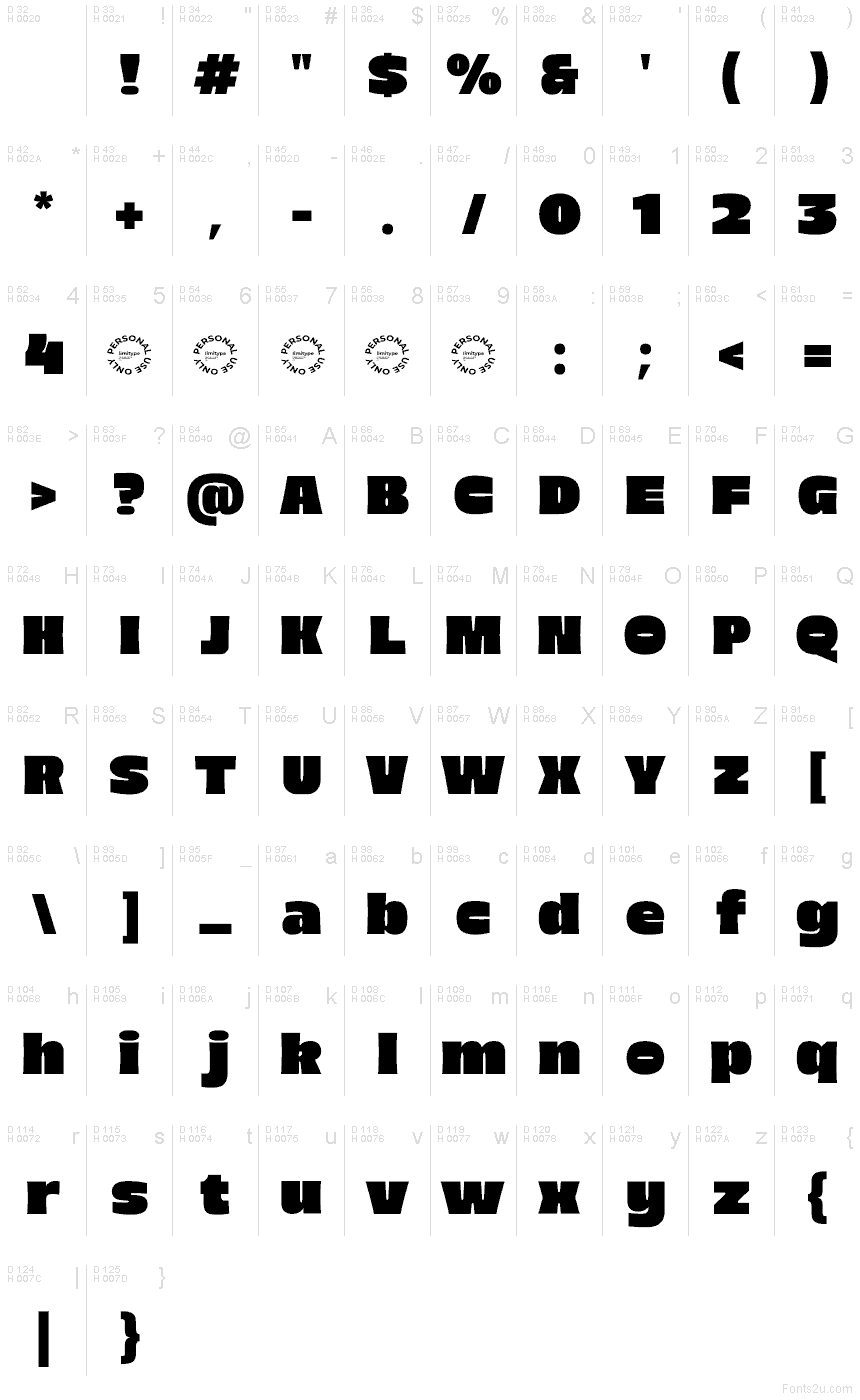
Wister Demo
Wister font by Limitype is a free ultra-bold sans serif display font. It stands out with chunky, soft-edged forms that pack dense color on the line, creating a smooth, almost inky silhouette with tight counters and confident curves. The rhythm feels solid and grounded, so headlines lock up cleanly without awkward gaps—powerful, friendly, and impossible to miss.
Using Wister, you’ll get instant impact on posters, logos, packaging, event flyers, social banners, and merch. This free font thrives at large sizes, where its compact spacing and weight deliver billboard-level punch without shouting. For a balanced system, pair Wister’s heavy shapes with a light, neutral grotesk for body copy, and give it a touch of extra tracking above 24 pt.